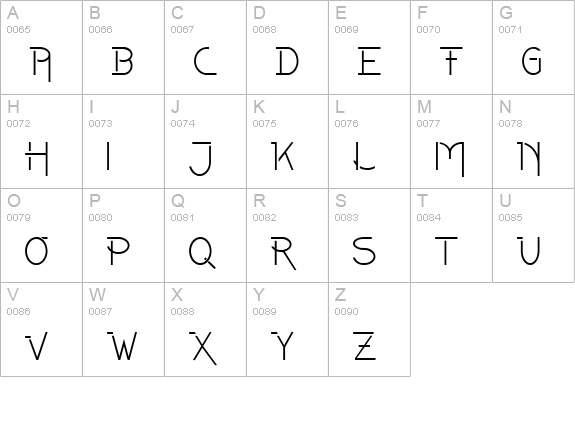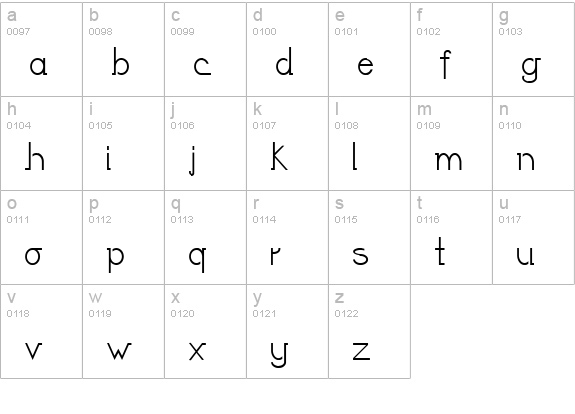
LateNite Font Details
LateNite font is a modern and stylish typeface that exudes a sense of sophistication and creativity. With its sleek and elegant design, this font is perfect for adding a touch of class to any project. Whether you are designing a logo, creating a poster, or crafting a website, LateNite font is sure to make a lasting impression. One of the best things about LateNite font is that it is available for free! Yes, you heard that right. This incredible font can be downloaded free of charge at FontsMarket.com. Now, you can access this amazing font without worrying about breaking the bank. It's the perfect solution for designers on a budget or anyone who simply loves a good deal. But don't let its price tag fool you, LateNite font is anything but cheap. Its high-quality design and attention to detail make it a standout choice in the world of typography. The sleek and clean lines of the letterforms create a modern and professional look that is sure to catch the eye. Whether you're using it for personal or commercial use, LateNite font will elevate your designs to new heights. This font is versatile and can be used in a variety of contexts. Its legibility and readability make it suitable for both headlines and body text, ensuring that your message is conveyed effectively. Its timeless appeal also means that it will remain relevant and fresh for years to come. LateNite font is the perfect blend of style and functionality. Its unique and captivating design will make your projects stand out from the crowd. So why wait? Head over to FontsMarket.com and download LateNite font for free today. You won't be disappointed.